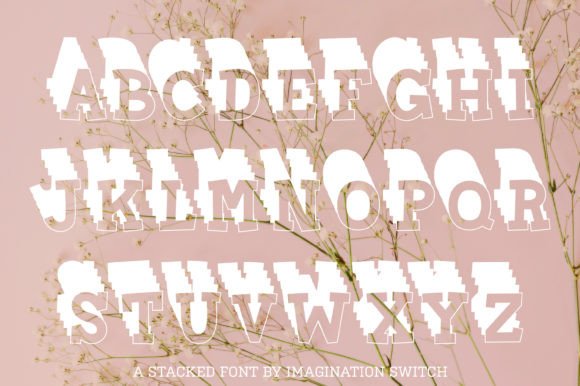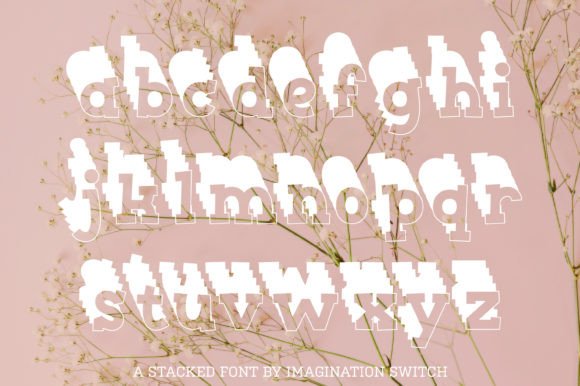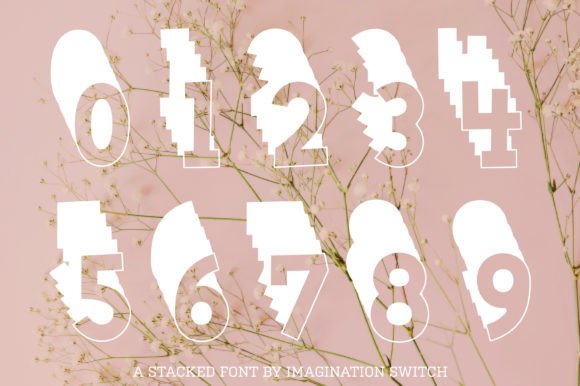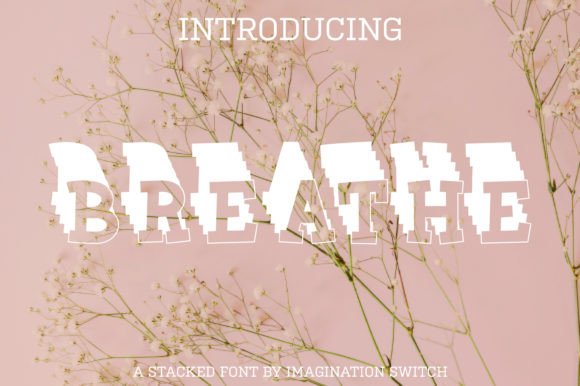
Breathe Font: Elevate Your Designs with Elegance and Dimension
In the world of typography, fonts play a crucial role in conveying messages, evoking emotions, and creating lasting impressions. For designers and crafters seeking to add a touch of sophistication and uniqueness to their projects, the Breathe Font is an exceptional choice. This display stacked font boasts an elegant, dimensional style that captivates audiences and offers versatility for various applications and moods.
What is Breathe Font?
Breathe Font is a distinctive, display stacked font designed to make a statement. Unlike traditional fonts, Breathe’s stacked style gives each letter a three-dimensional appearance, making it stand out in any design. This unique feature allows the font to exude elegance and charm, perfect for projects that require a touch of luxury or whimsy.
Key Features of Breathe Font
- Elegant Stacked Style: The stacked design of Breathe Font gives it a dimensional look, making each letter appear as if it’s layered, adding depth to your designs.
- Versatility: Whether you’re working on a branding project, a wedding invitation, a logo, or any other creative endeavor, Breathe Font adapts seamlessly to various purposes and moods.
- Captivating Appearance: The unique style of Breathe Font ensures that it captures the attention of viewers, making your designs memorable and impactful.
- Suitable for Various Projects: From luxury brands to creative crafts, Breathe Font’s versatility makes it an excellent choice for a wide range of applications.
Uses of Breathe Font
The Breathe Font’s distinctive style makes it suitable for a multitude of design projects. Here are some of the most popular uses:
- Branding and Logos: Create a lasting impression with a unique logo that stands out. Breathe Font’s elegance and dimension make it perfect for luxury brands, boutiques, and creative businesses.
- Wedding and Event Invitations: Add a touch of sophistication and romance to your wedding or event invitations. Breathe Font’s captivating style ensures your invitations are memorable.
- Packaging Design: Elevate your product packaging with a font that exudes luxury and quality. Breathe Font can make your products stand out on the shelves.
- Advertising and Marketing Materials: Whether it’s a billboard, a brochure, or a digital ad, Breathe Font can help your marketing materials grab attention and convey your message effectively.
- Digital and Print Media: From website headers to magazine titles, Breathe Font can add a unique flair to your digital and print media projects.
Why Choose Breathe Font?
In a sea of fonts, Breathe Font stands out for several reasons:
- Uniqueness: Its stacked style is not commonly found in traditional fonts, making it a unique addition to your design projects.
- Emotional Connection: The elegance and dimension of Breathe Font can evoke emotions and create a connection with your audience.
- Flexibility: It can be used in a variety of contexts, from formal and luxurious to playful and whimsical.
How to Use Breathe Font Effectively
To maximize the impact of Breathe Font in your designs, consider the following tips:
- Pair with Complementary Fonts: Use Breathe Font as a headline font and pair it with a simpler font for body text to create contrast and hierarchy.
- Adjust Size and Color: Experiment with different sizes and colors to ensure Breathe Font complements your design without overpowering it.
- Consider the Background: Choose backgrounds that enhance the dimensional appearance of Breathe Font, making it stand out even more.
Breathe Font offers a unique blend of elegance, dimension, and versatility, making it an excellent choice for designers and crafters looking to elevate their projects. Whether you’re aiming to create a luxurious brand image, design captivating invitations, or simply add a touch of sophistication to your work, Breathe Font is sure to deliver. Its distinctive stacked style and captivating appearance ensure that your designs not only stand out but also leave a lasting impression on your audience.
So, why settle for ordinary when you can create something extraordinary? Explore the possibilities with Breathe Font and breathe new life into your designs.